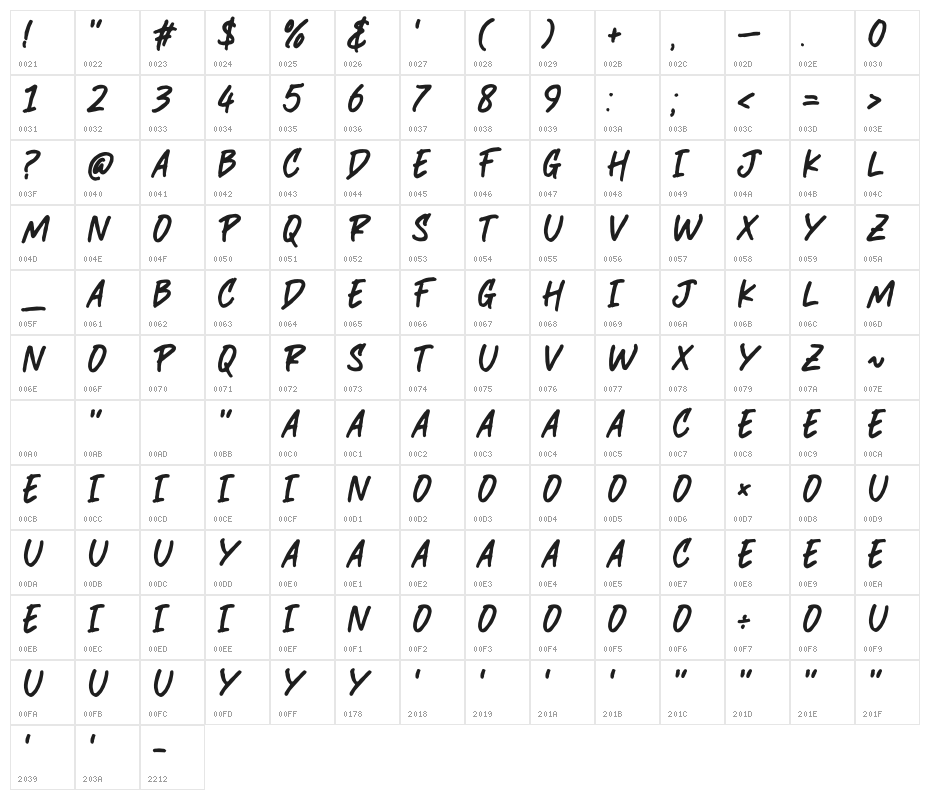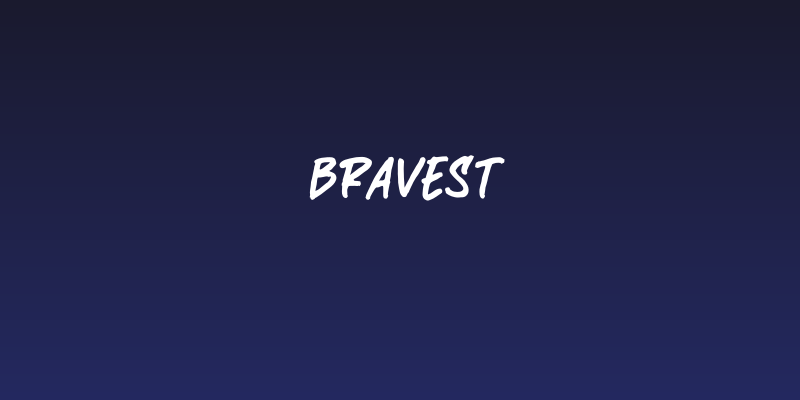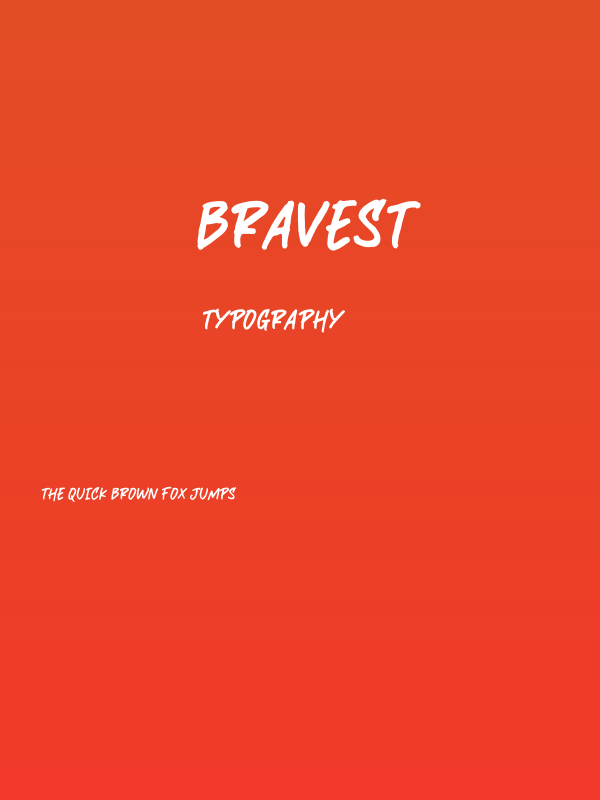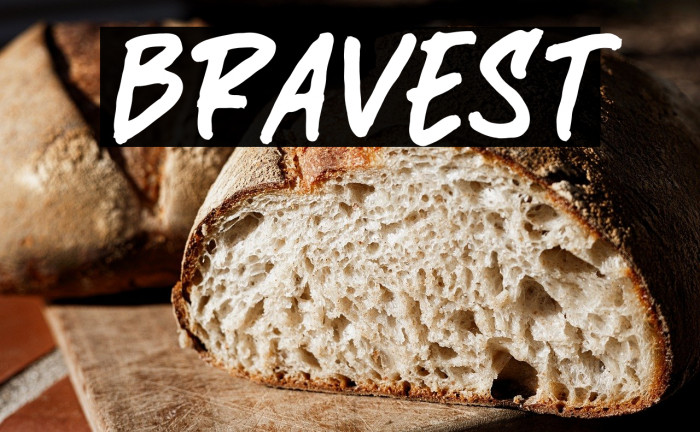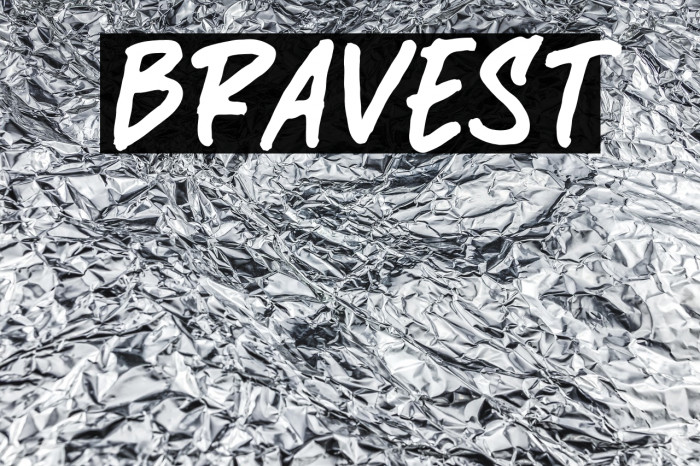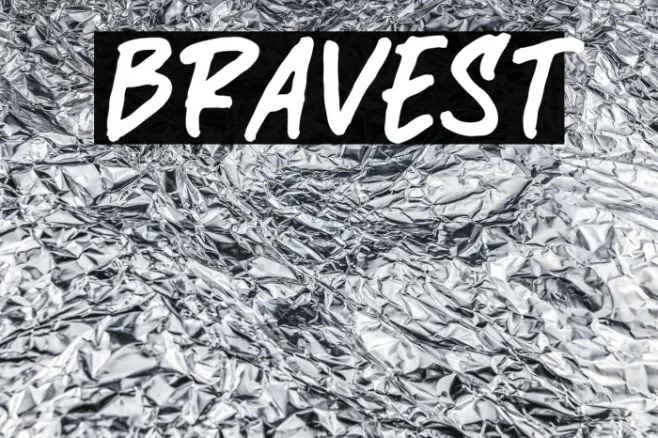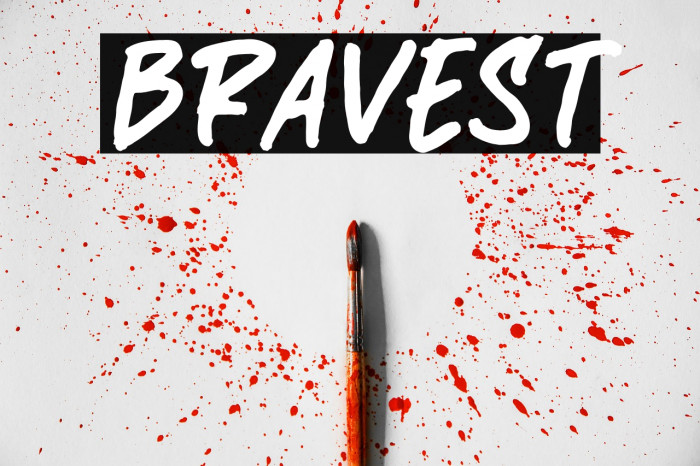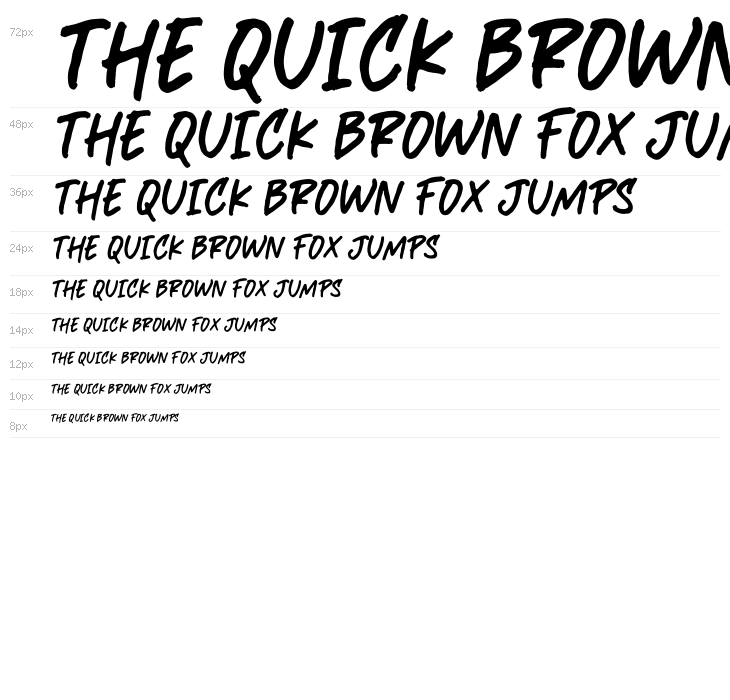
BRAVEST Font
BRAVEST Description
This font features a bold, handwritten style with a dynamic and energetic appearance. The letters are slightly slanted, giving a sense of movement and fluidity. The strokes are thick and consistent, providing a strong visual impact. The characters are well-spaced, ensuring readability while maintaining a cohesive look. The font includes both uppercase and lowercase letters, numerals, and a variety of special characters, making it versatile for different uses. Its playful yet assertive style makes it suitable for projects that require a personal touch or a bold statement.
| Use Case | Logos, Headlines, Posters |
| Proposed Projects | Ideal for branding, posters, social media graphics, and creative projects requiring a personal touch. |